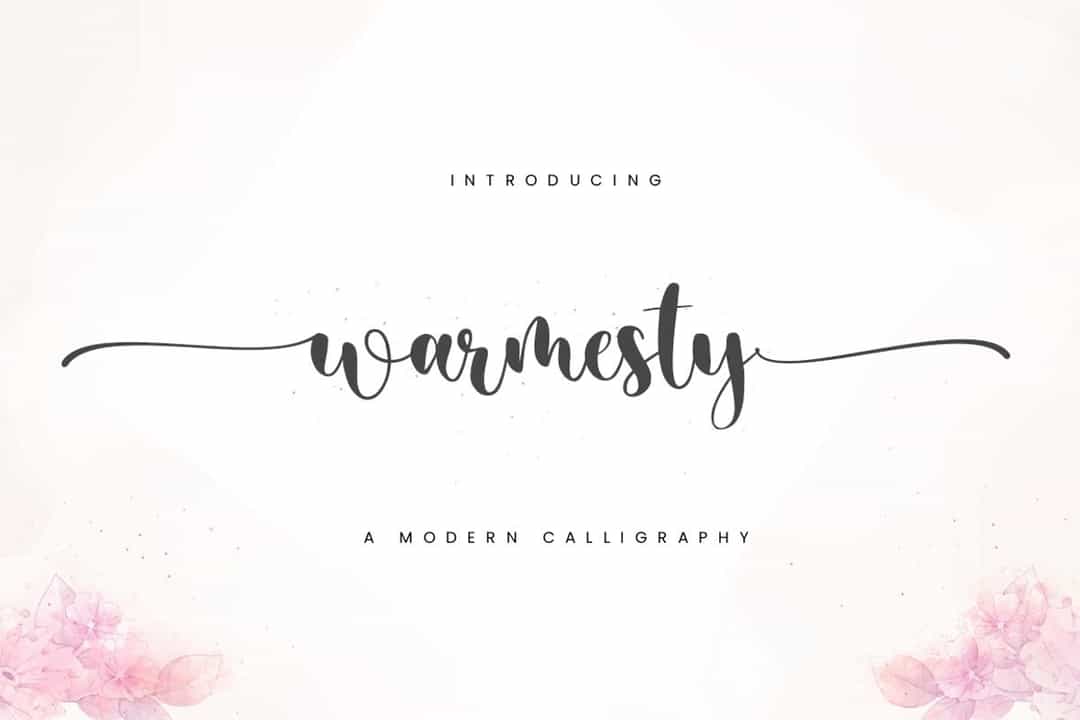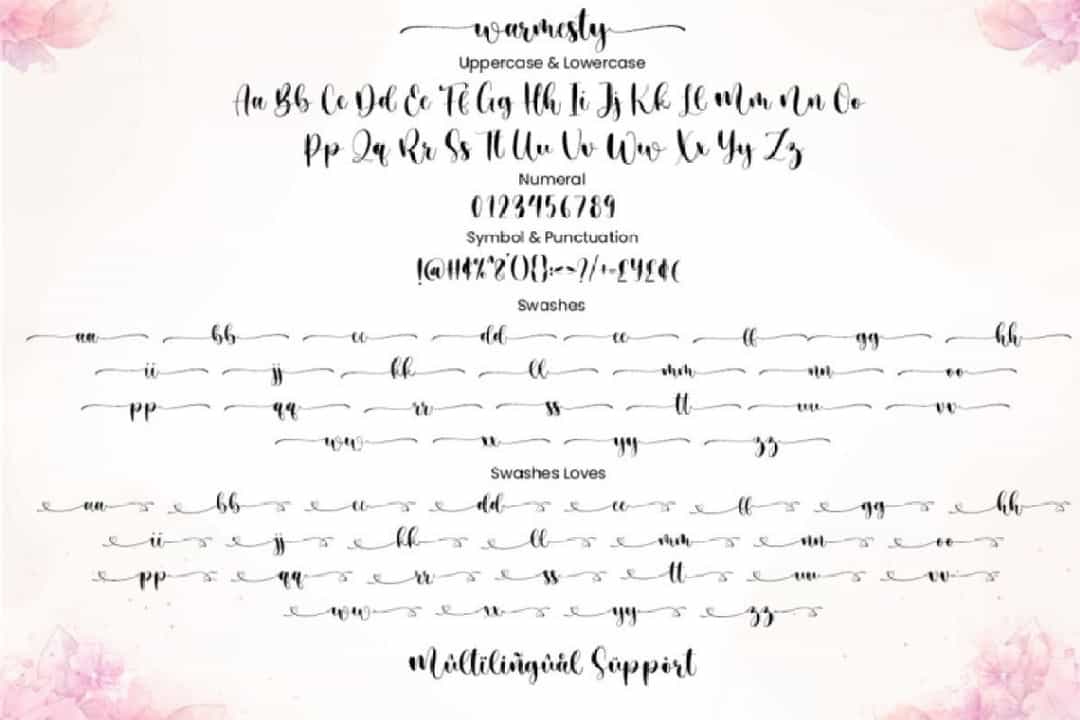
Warmesty is an elegant calligraphy font that is ideal for brand logo, invitation card, stationery, wedding card, and social media purpose. In addition the versatility of the software is seen in advertisements, packaging of product labels, product designs and photographs watermarks special events or any other purpose!